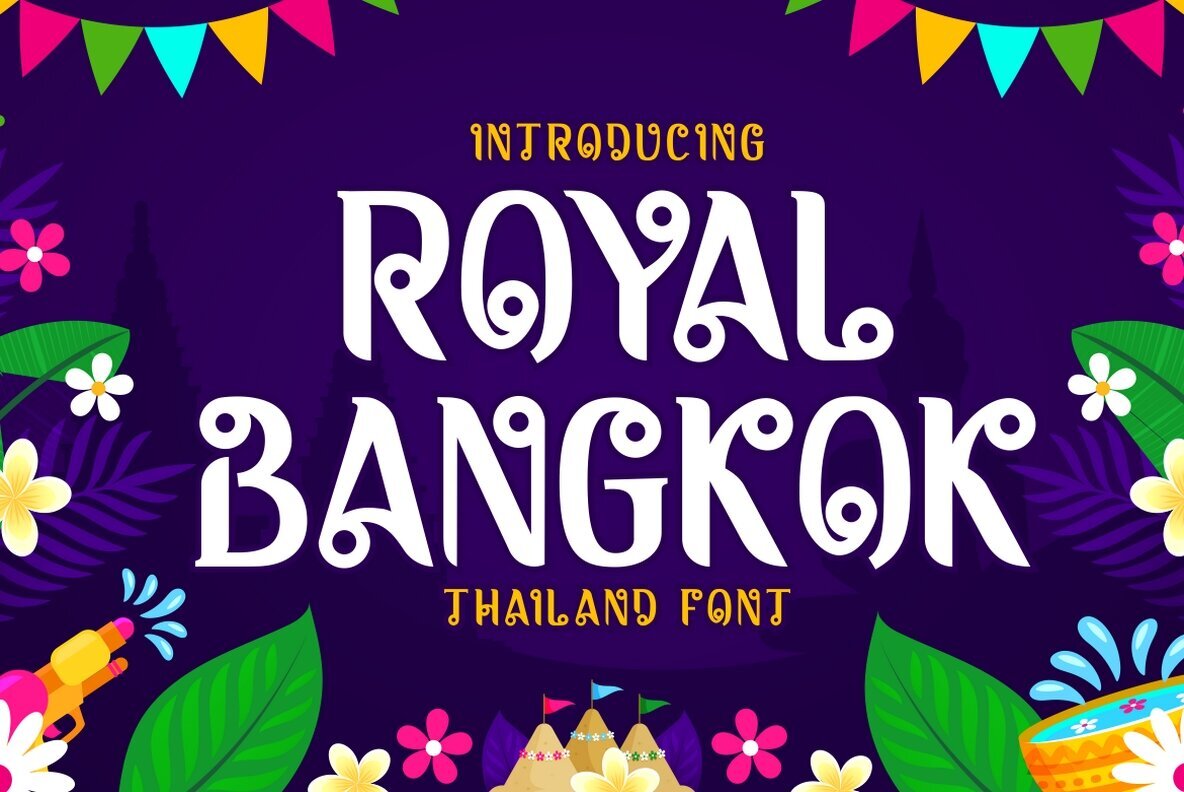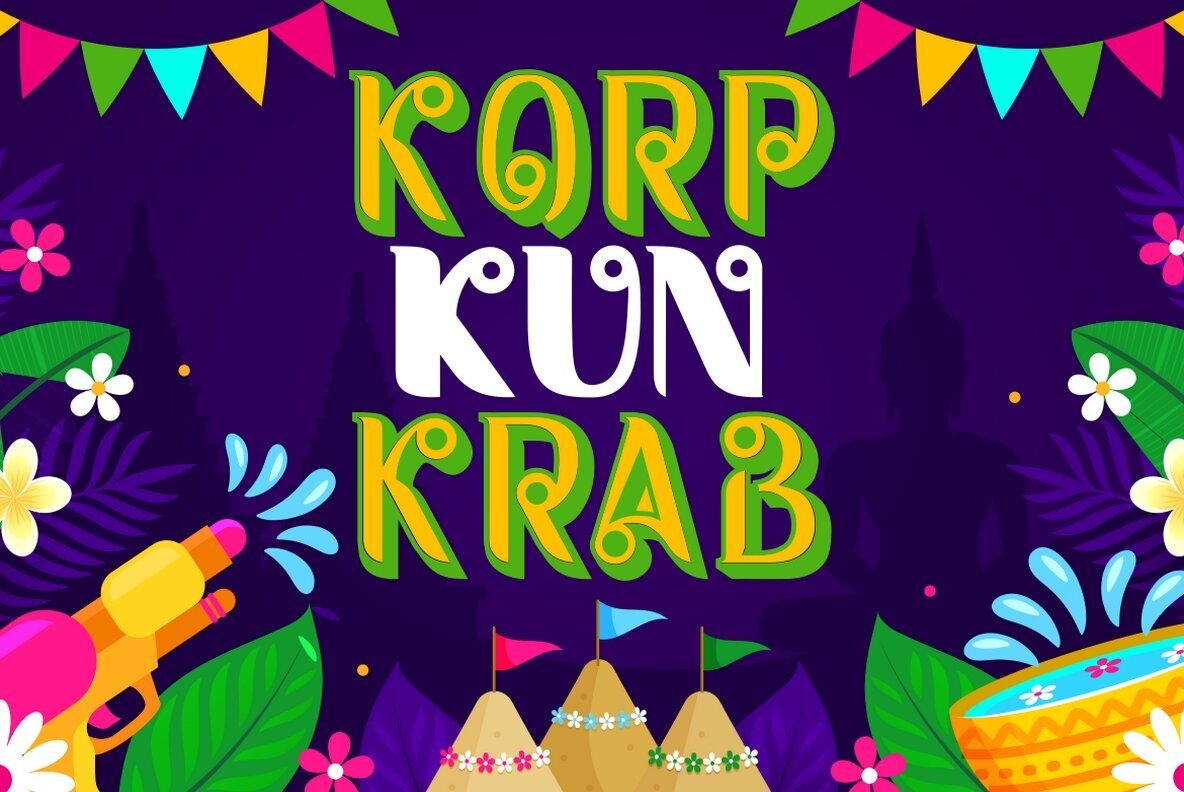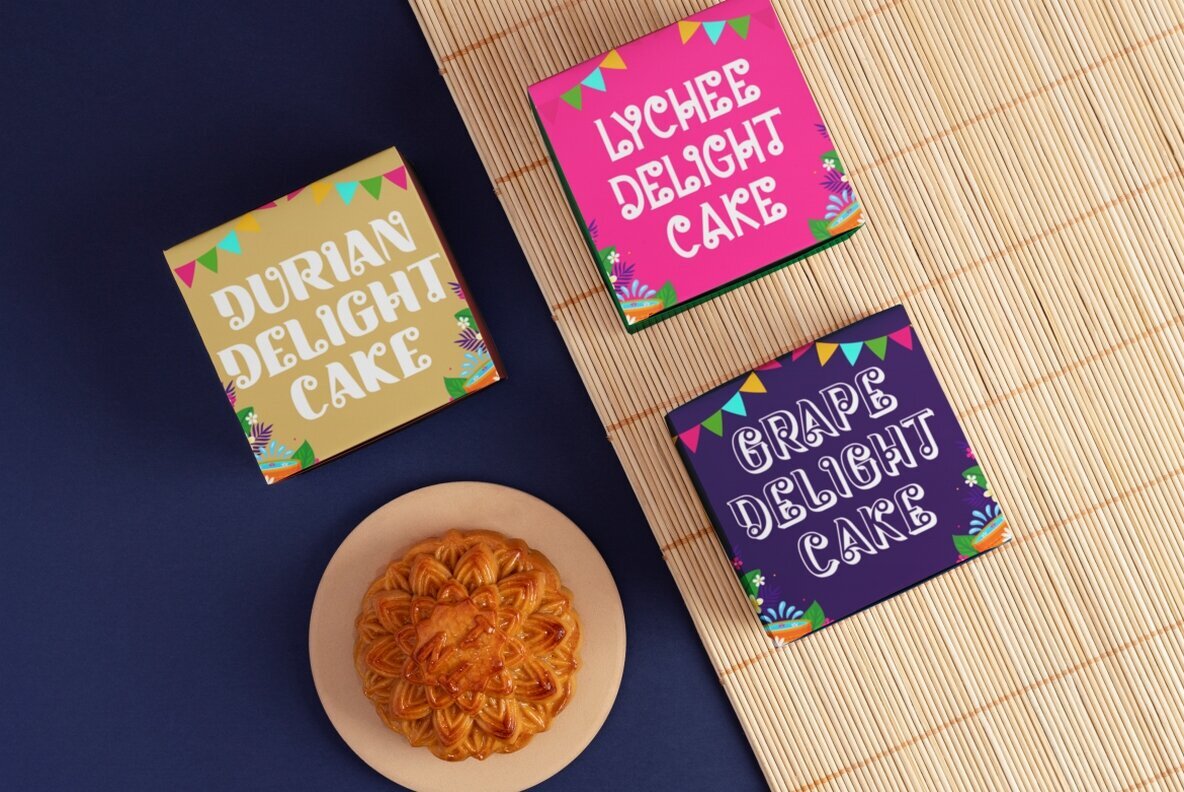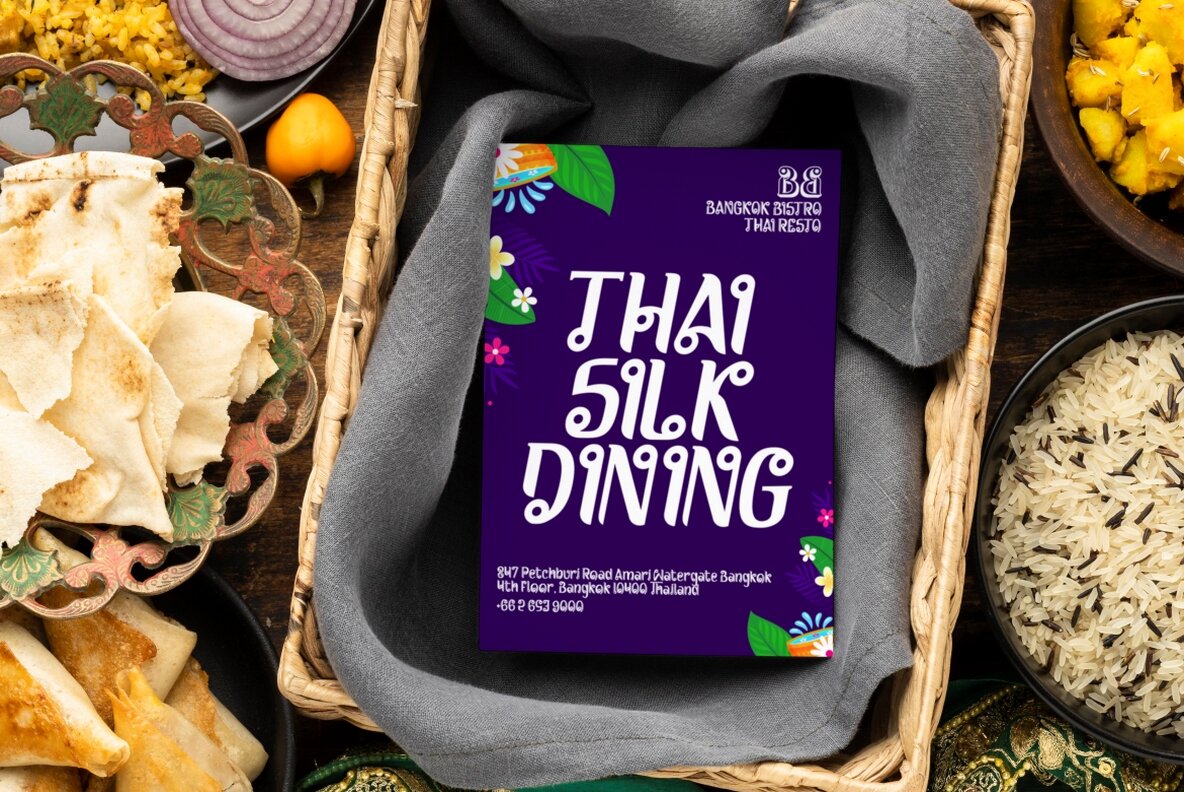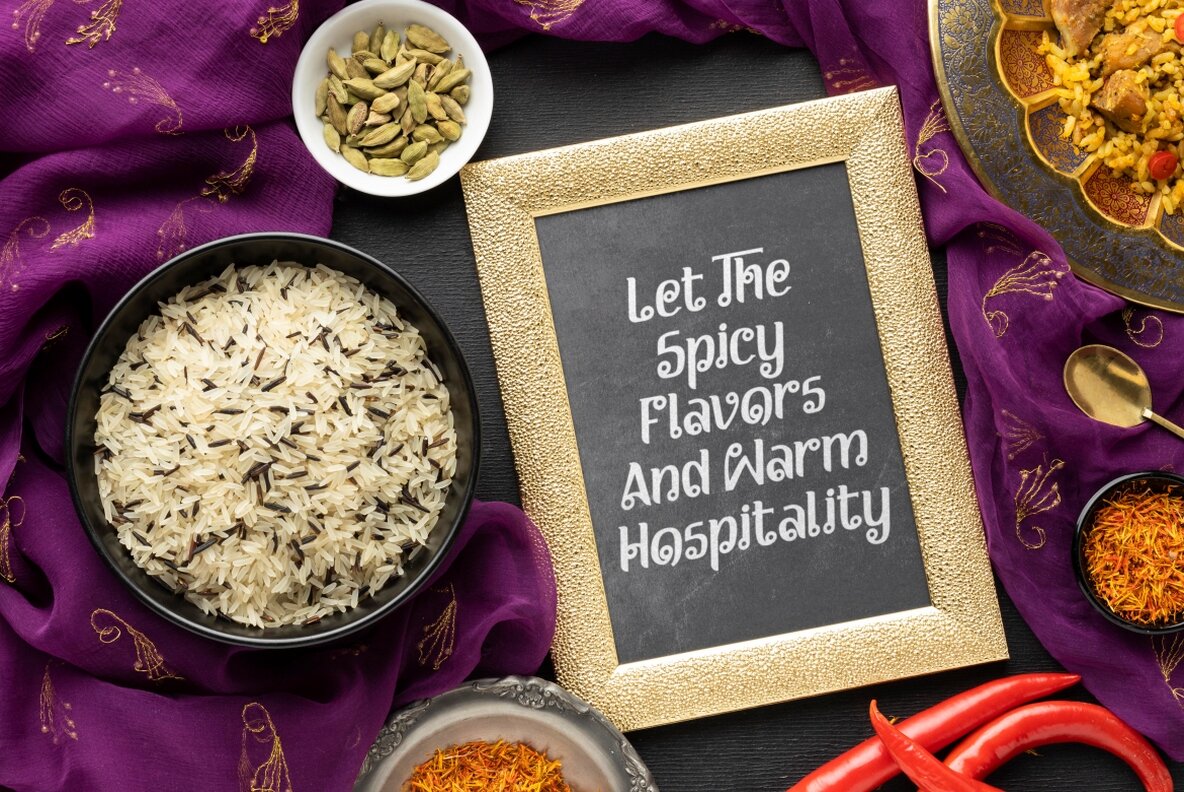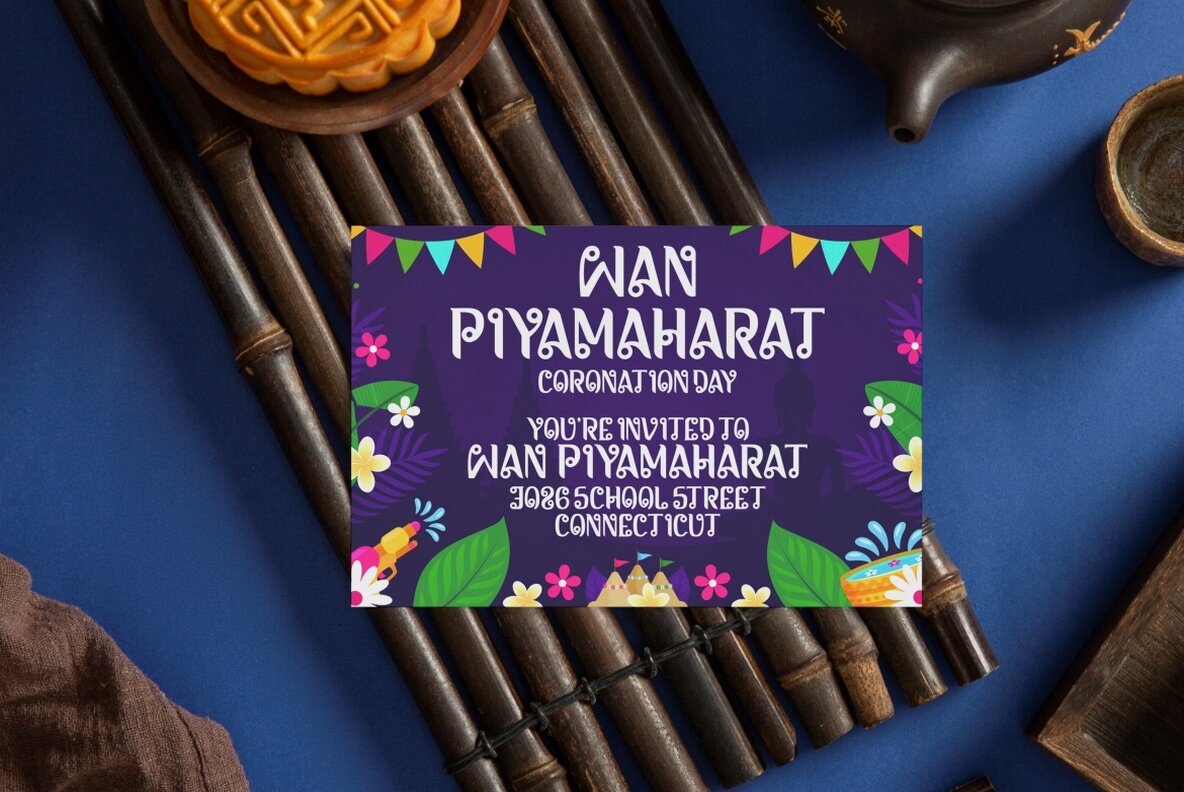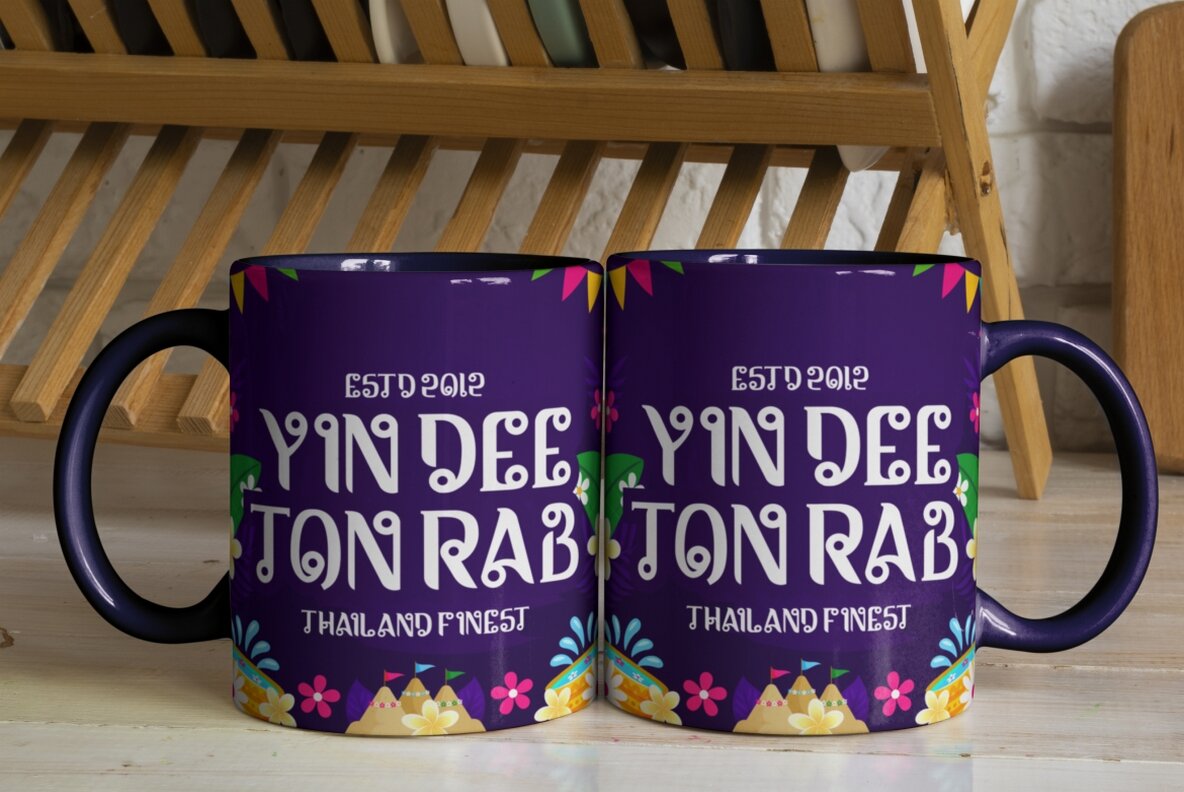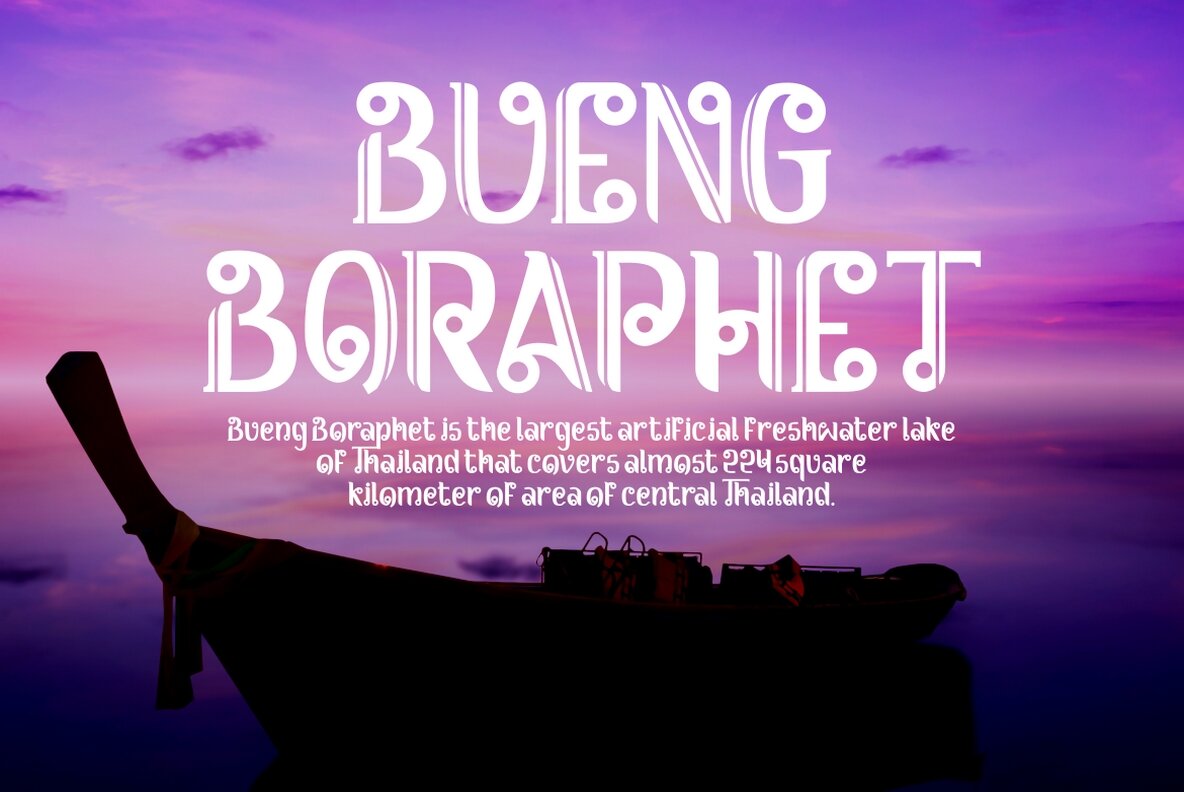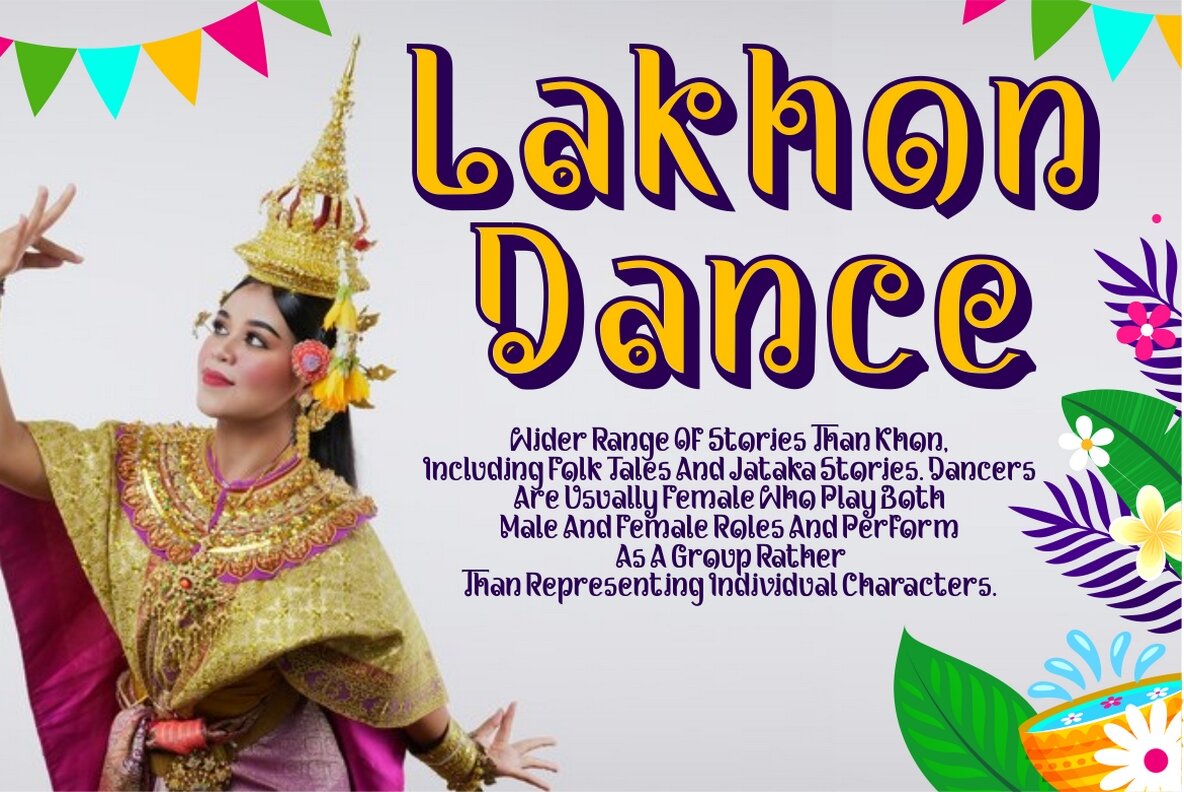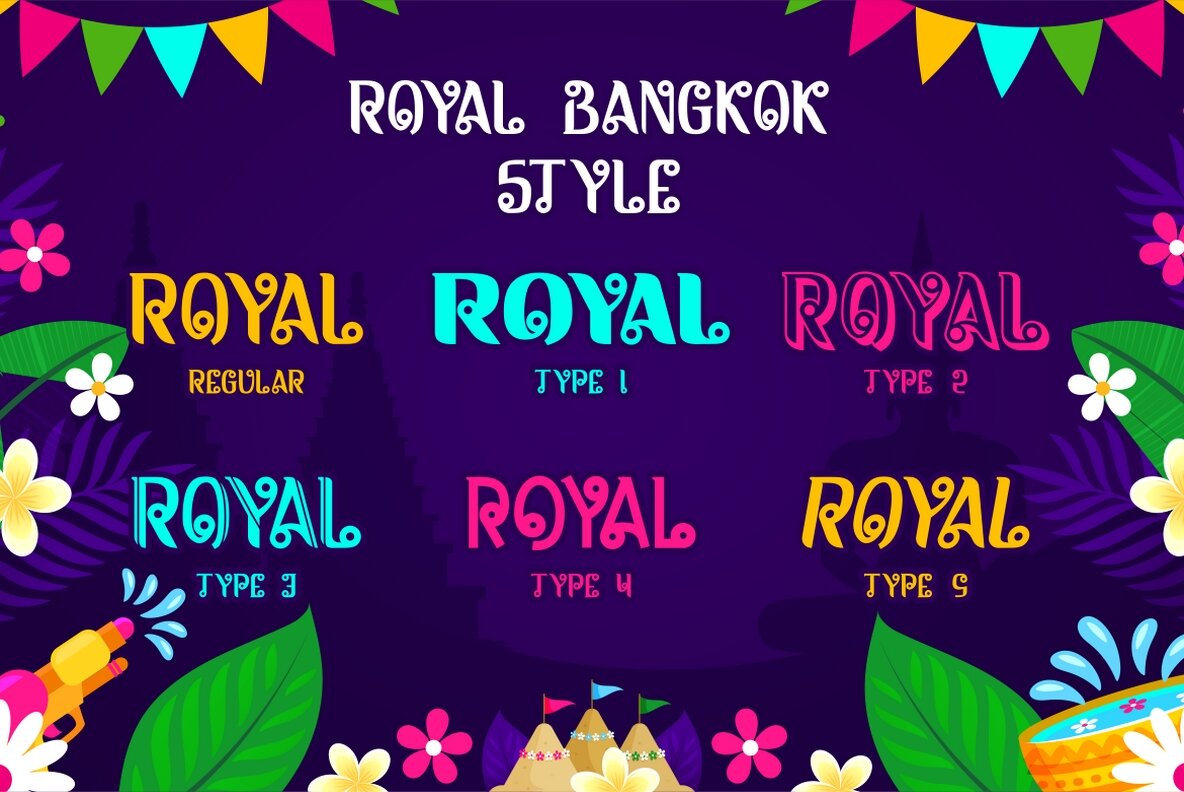
Royal Bangkok Font
Royal Bangkok Thailand Font is an exceptional display typeface that encapsulates the enchanting allure of Thai culture and Asian aesthetics in a unique form. Its bold strokes, rounded terminals, and distinctive swirl-like elements are reminiscent of traditional Thai artistic expression, offering designers a blend of modern readability and cultural authenticity. This balance is perfect for those aiming to infuse their projects with heritage, celebration, and an exotic flair. The font's playful yet structured design keeps elegance at the forefront, making it an ideal choice for festive and attention-grabbing layouts. Perfect for designs that necessitate cultural richness and visual prominence, this font is an excellent choice for logos, packaging, posters, invitations, restaurant branding, or festival-themed projects. Its versatility across both print and digital formats allows designers the freedom to adapt it widely. Royal Bangkok also offers multiple styles, providing room for experimentation with different moods and projects. Be it a traditional event, food branding, or travel campaign, this typeface delivers authenticity and vibrant energy to any creative endeavor.Royal Bangkok: Thai Culture Through Typography